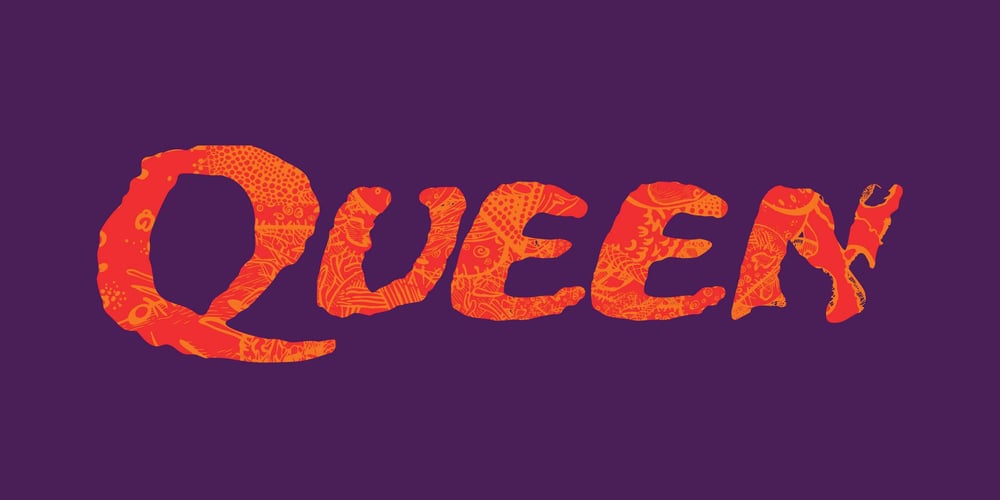
Merc
Merc font
Merc Font Family was designed by Patrick Griffin, Wolfgang Eickhoff and published by Canada Type. Merc contains 1 styles and family package options. Merc is a four-letter word that stops just one y short of Mercy. Merc is also the standard street abbreviation for mercenary, or a soldier for hire. Now that the global security business has become a two hundred billion dollar industry, we thought you would like to have your very own affordable merc.Knew you’d be pleased.Merc is based on an all-cap metal face called Agitator, designed by Wolfgang Eickhoff and published by Typoart in 1960. The rough brush letters look like they were made by someone who is capable of elegance but has no time for it. These are letters that live to catch the eyes and warn them loudly: Doom is here, and if you want it screamed out, this Merc is at your service.This font contains more than 460 glyphs, which means quite a few stylistic alternates and support for the majority of Latin languages.